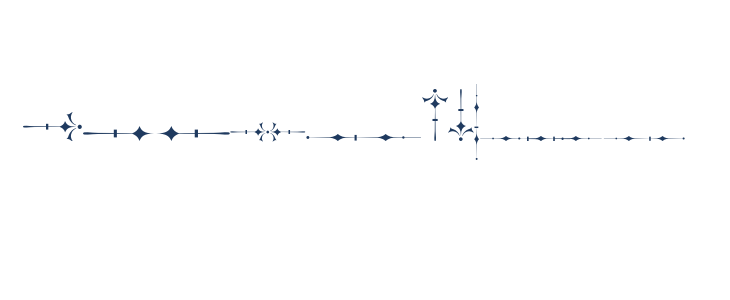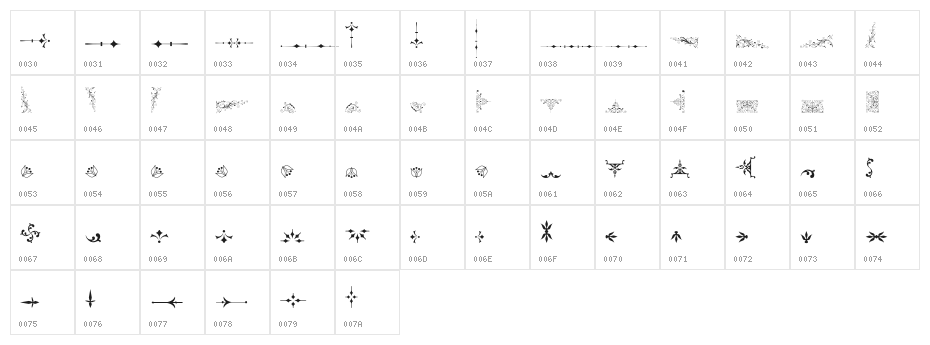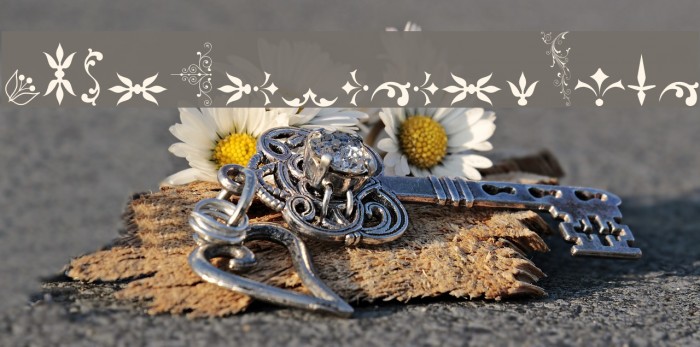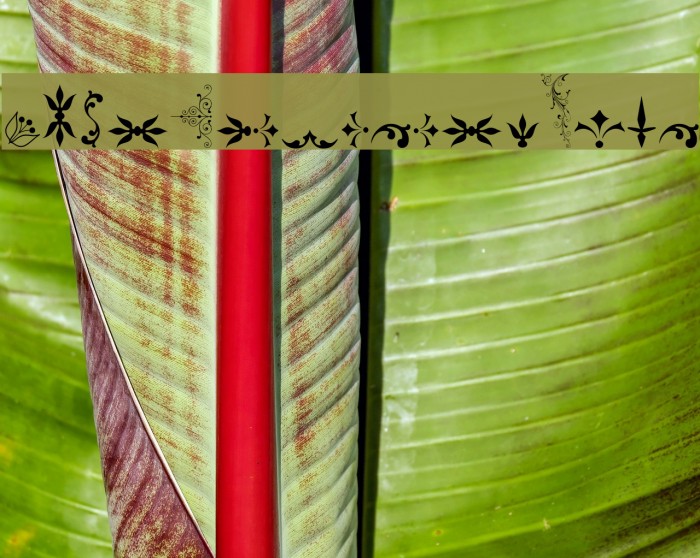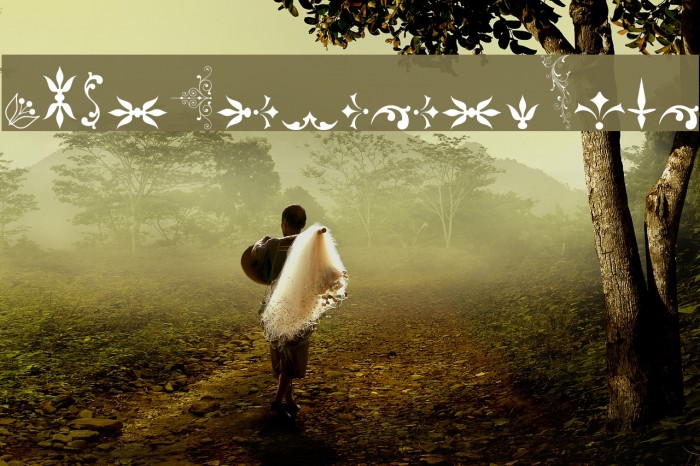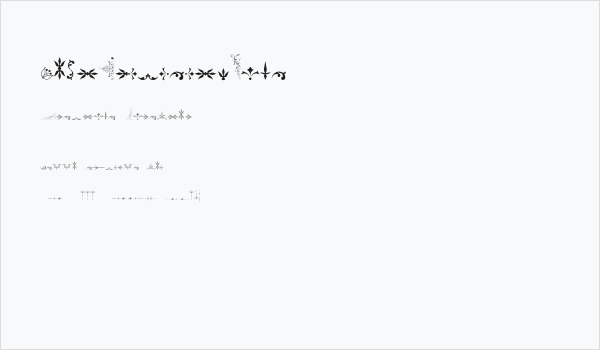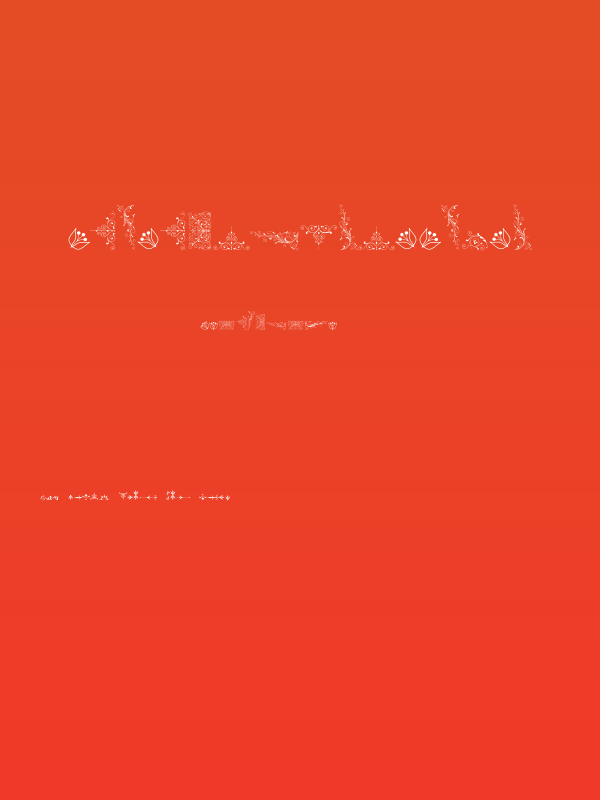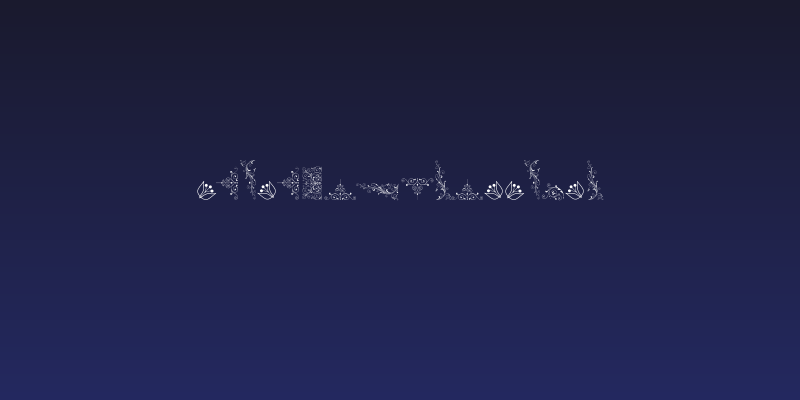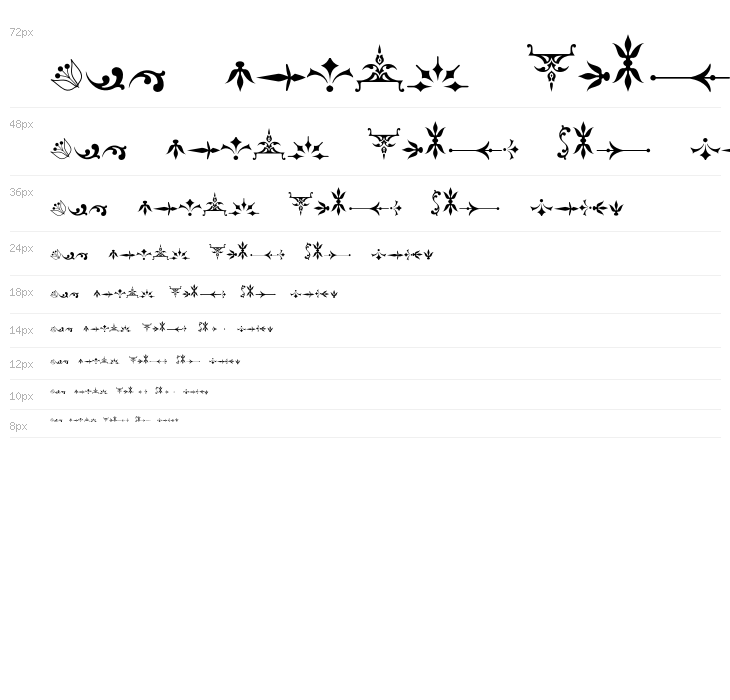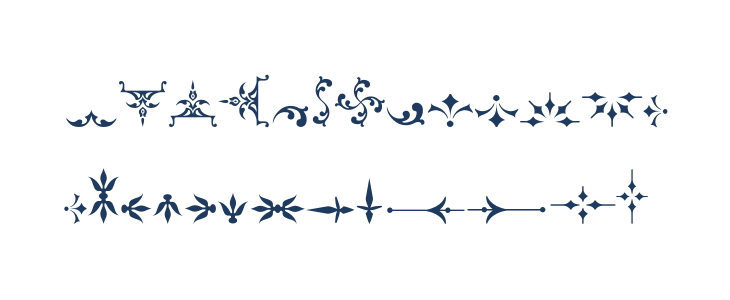
SoftOrnamentsFive Font
SoftOrnamentsFive Description
A collection of highly decorative ornamental glyphs featuring intricate flourishes, floral motifs, and symmetrical patterns. The designs range from delicate, thin lines to bold, solid shapes, suitable for use as borders, dividers, or embellishments in design projects.
| Overall Style | Vintage, Decorative |
| Use Case | Borders, Dividers, Decorative elements |
| Proposed Projects | Wedding invitations, certificates, vintage posters, book covers, decorative borders, and elegant branding. |